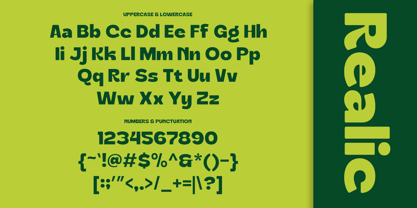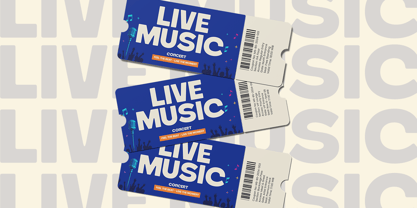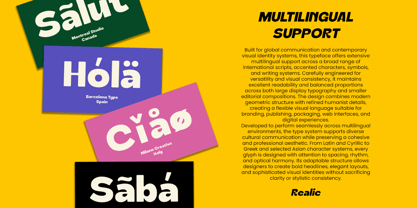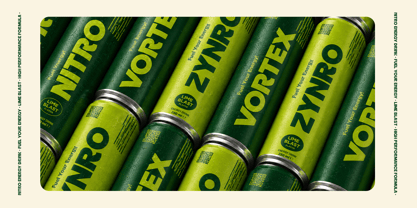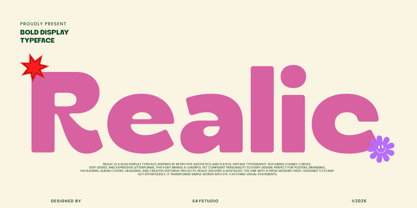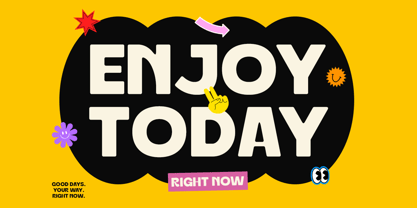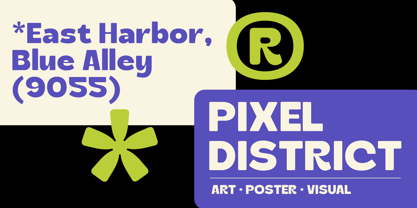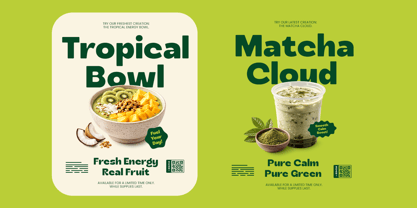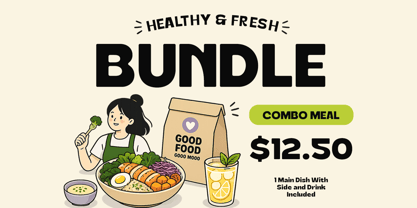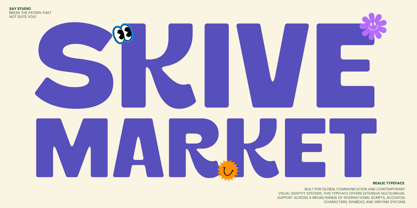
Realic
by Say Studio
The Realic Font Family was designed by Mussyayin and published by Say Studio. Realic contains 2 styles and family package options. More about this family
Realic is a bold retro display typeface designed to bring playful energy, confident branding, and eye-catching personality into every design project. Inspired by vintage pop aesthetics, funky editorial layouts, and expressive geometric typography, this font combines chunky letterforms, soft curves, and charismatic visual rhythm to create unforgettable statements. Its bold presence makes every word instantly impactful while maintaining a clean modern versatility.
Perfect for designers seeking standout typography, Realic works beautifully across posters, packaging, food branding, beverage labels, social media graphics, event promotions, merchandise, album covers, editorial headlines, website banners, and playful brand identities. With multilingual support, uppercase and lowercase characters, numerals, punctuation, and strong readability, it offers flexibility for both bold commercial branding and creative experimental layouts.
Whether you're crafting energetic packaging, retro-inspired campaigns, modern poster graphics, or expressive branding systems, Realic delivers joyful bold typography with maximum visual impact.
Designers: Mussyayin
Foundry: Say Studio